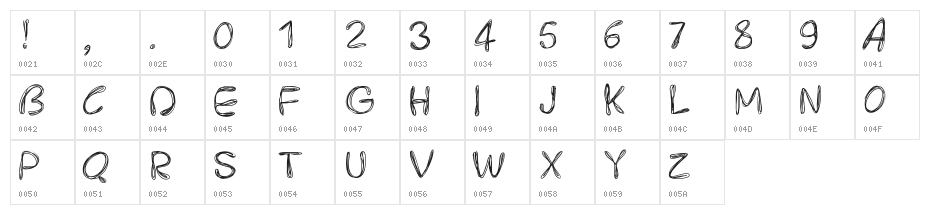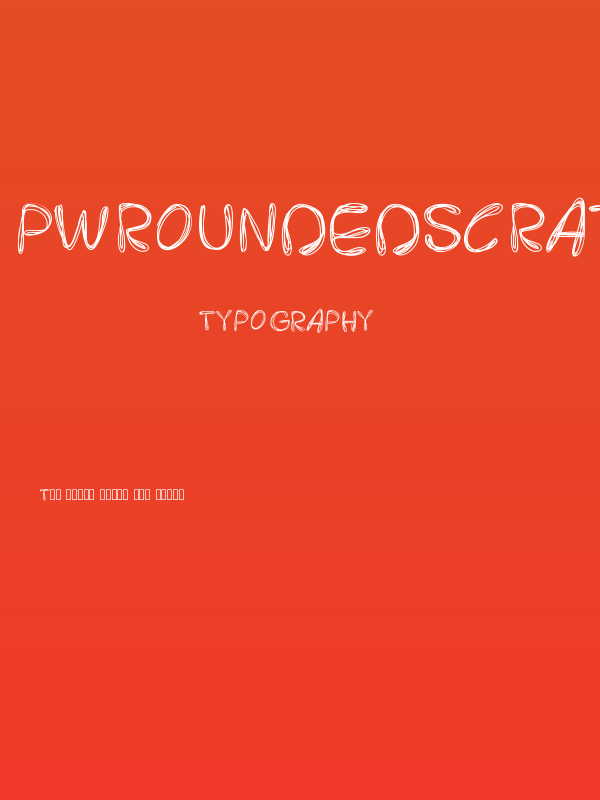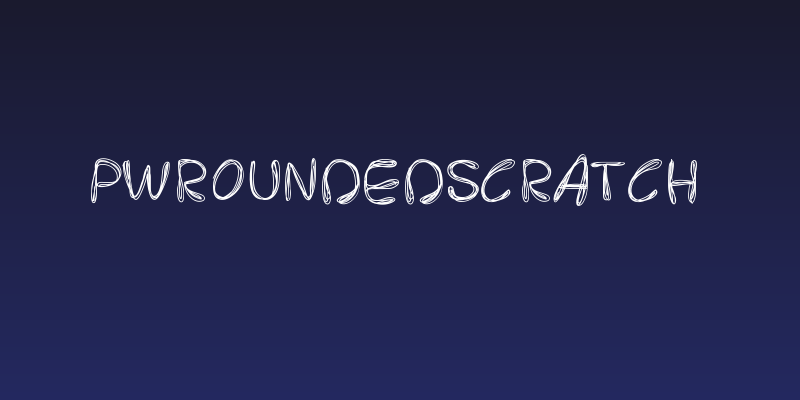
PWRoundedScratch Font
PWRoundedScratch Description
This font features a playful and dynamic style, characterized by its hand-drawn, scratchy appearance. The letters are rounded and exhibit a casual, artistic flair, making them ideal for projects that require a touch of creativity and informality. The strokes are uneven, adding to the font's unique and whimsical charm. This font is perfect for designs that aim to convey a sense of fun and spontaneity, such as children's book covers, playful branding, or artistic posters. Its distinctive look ensures that it stands out, capturing attention with its lively and energetic vibe.
Overall StyleDecorative
Use CaseHeadlines, Logos
Proposed ProjectsChildren's books, playful branding, artistic posters, casual invitations.